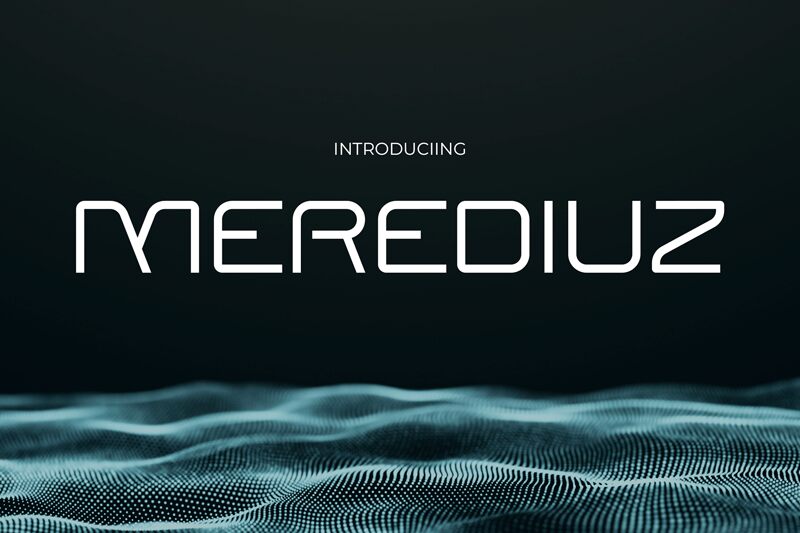
MEREDIUZ
Merediuz font, crafted by Pinisiart, conveys an expanded techno display style that is sure to attract attention. Its modern aesthetic comes from rounded square shapes that lend a futuristic feel. Designed in a geometric, minimalist fashion, the font includes vivid lower and uppercase lettering.
This free display font is perfectly applicable to branding design, packaging design, logos and logotypes with short positioning statements in them. Use it for artwork name signage on posters/flyers/brochures/covers or for names of bars/restaurants/shops on signage boards. Websites, social media graphics (cover/profile texts), and emails would also look more attractive with this modern script font.